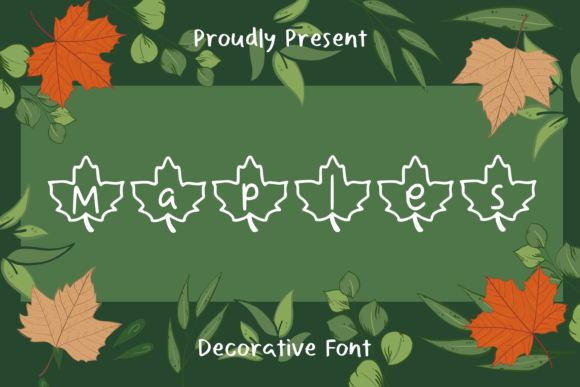
Journey into an enchanted realm where letters dance with elegance and charm, introducing you to Maples Font, a masterpiece that exudes individuality in every stroke. Step into a world of creativity, where your imagination reigns supreme and your designs transcend the ordinary.
Maples Font is not just a font; it's an artistic odyssey that elevates your projects to new heights. With its delicate curves, intricate details, and a captivating flow, Maples Font is the ultimate companion for your artistic endeavors. Whether you're crafting stunning digital designs, making presentations that inspire, or adding a touch of magic to your handmade creations, this font will leave an imprint of elegance and sophistication.
Immerse yourself in a symphony of aesthetics as Maples Font weaves its charm into your work. Whether you seek an otherworldly allure for your creative CV or a touch of enchantment for greeting cards, this font has the power to leave a lasting impression. Its intricate details and graceful lines dance across the page, captivating your audience with their timeless beauty.
Maples Font is a testament to the boundless possibilities of creativity and the artistry of its creator, nuraisyahamalia1729. Its versatility knows no bounds, allowing you to inject a spark of enchantment into a wide array of projects. Let your imagination soar as you explore the endless possibilities that await you with this exceptional font.
Unleash the boundless creativity within you and embrace the allure of Maples Font. Let your designs bloom with an ethereal grace that captures hearts and minds. Experience the true essence of artistic expression as you immerse yourself in the magical world of Maples Font, where beauty and creativity intertwine.